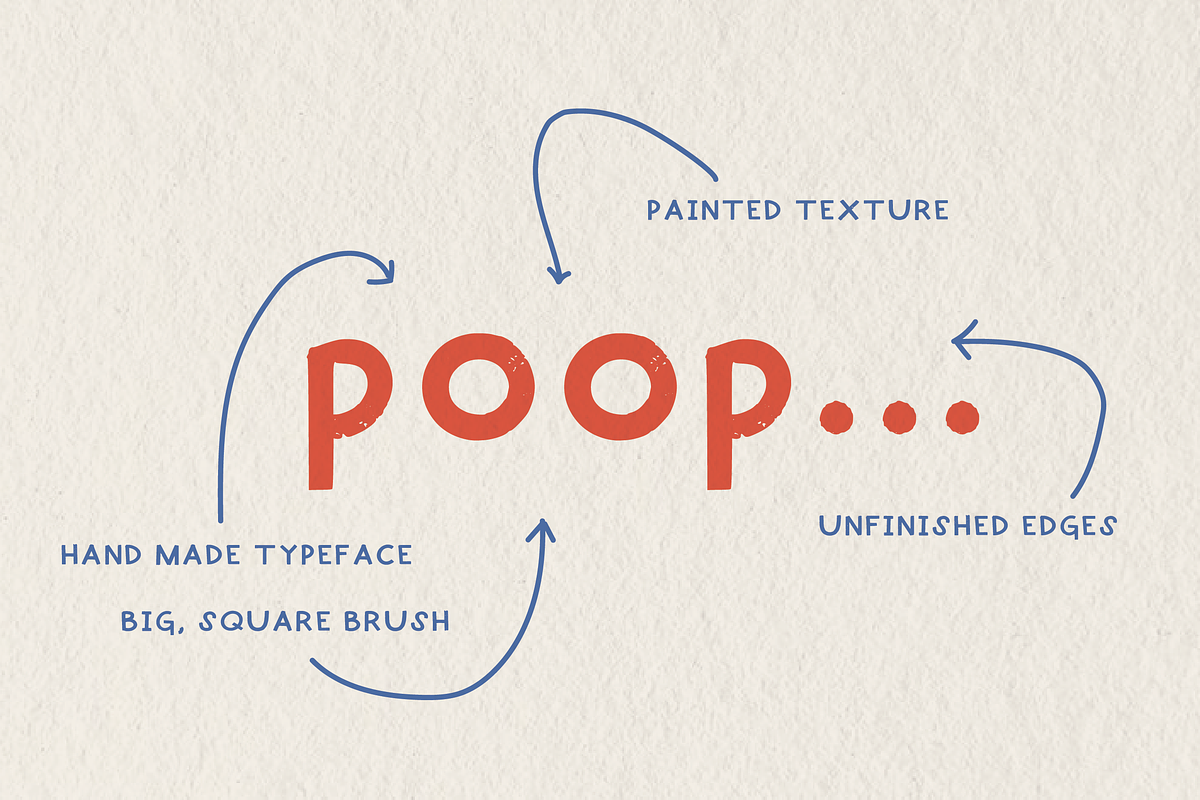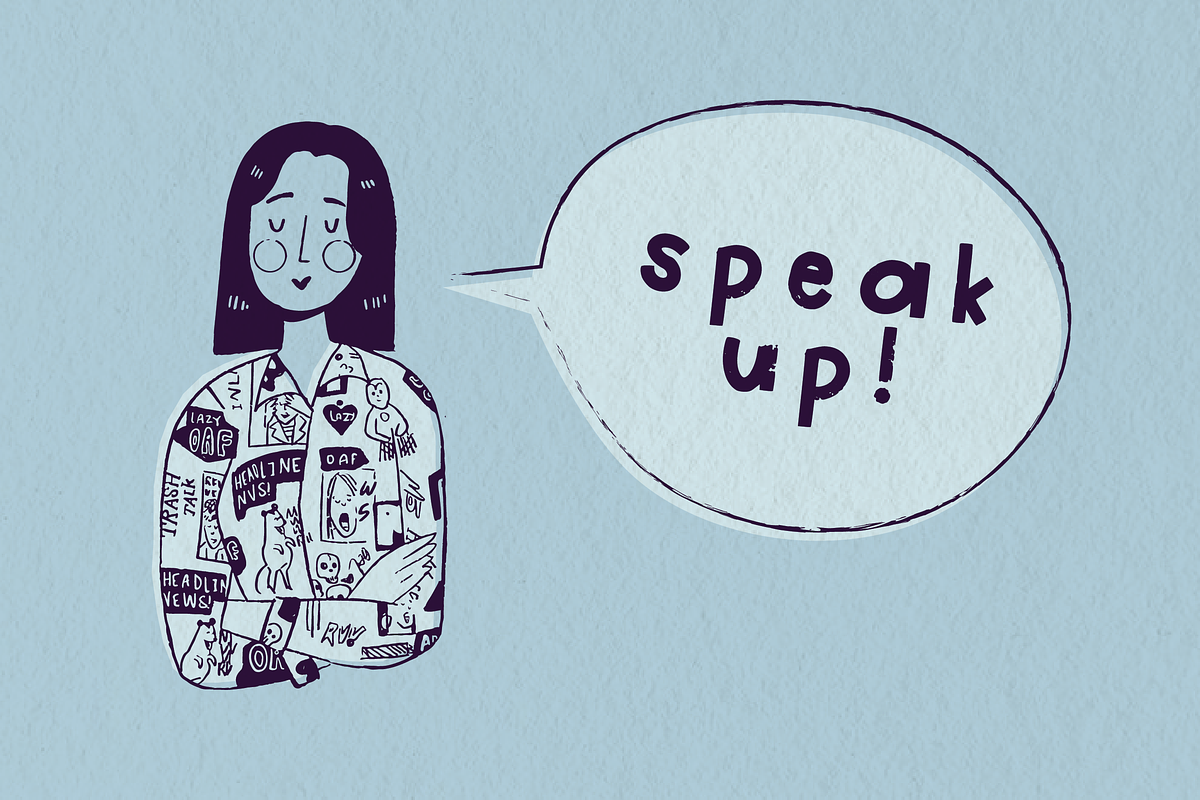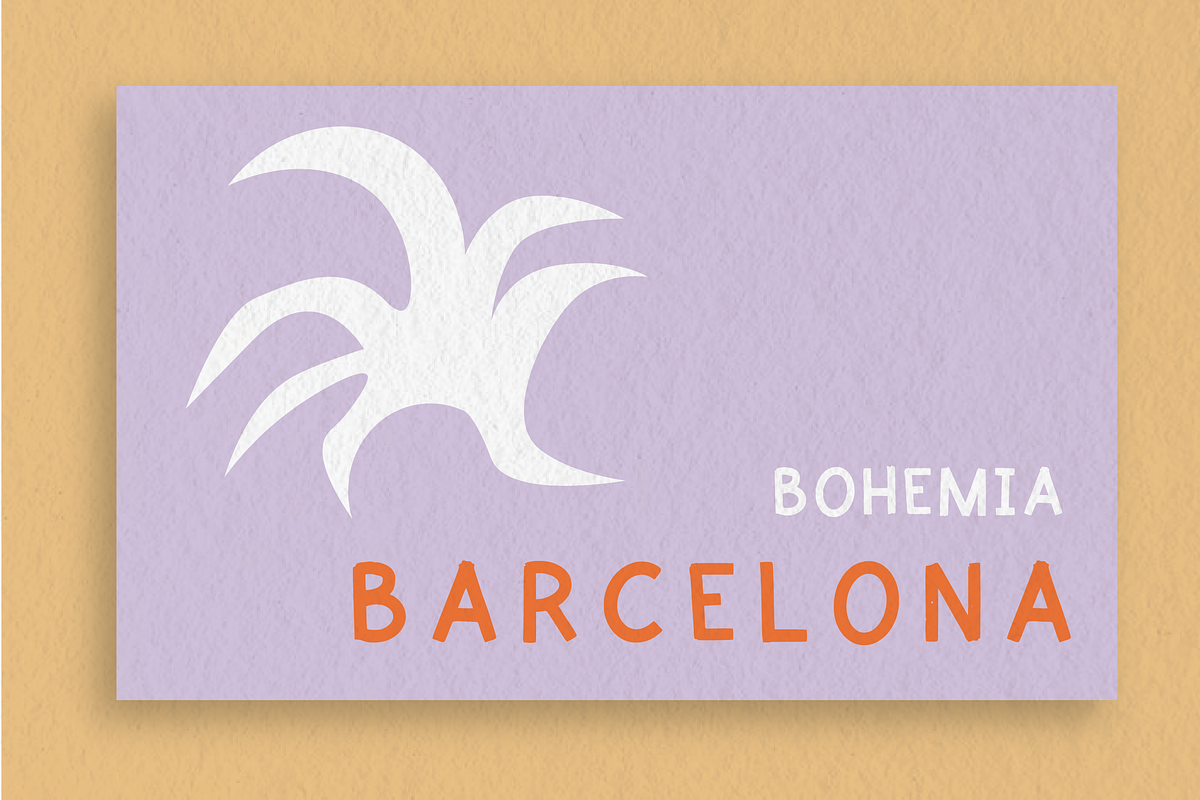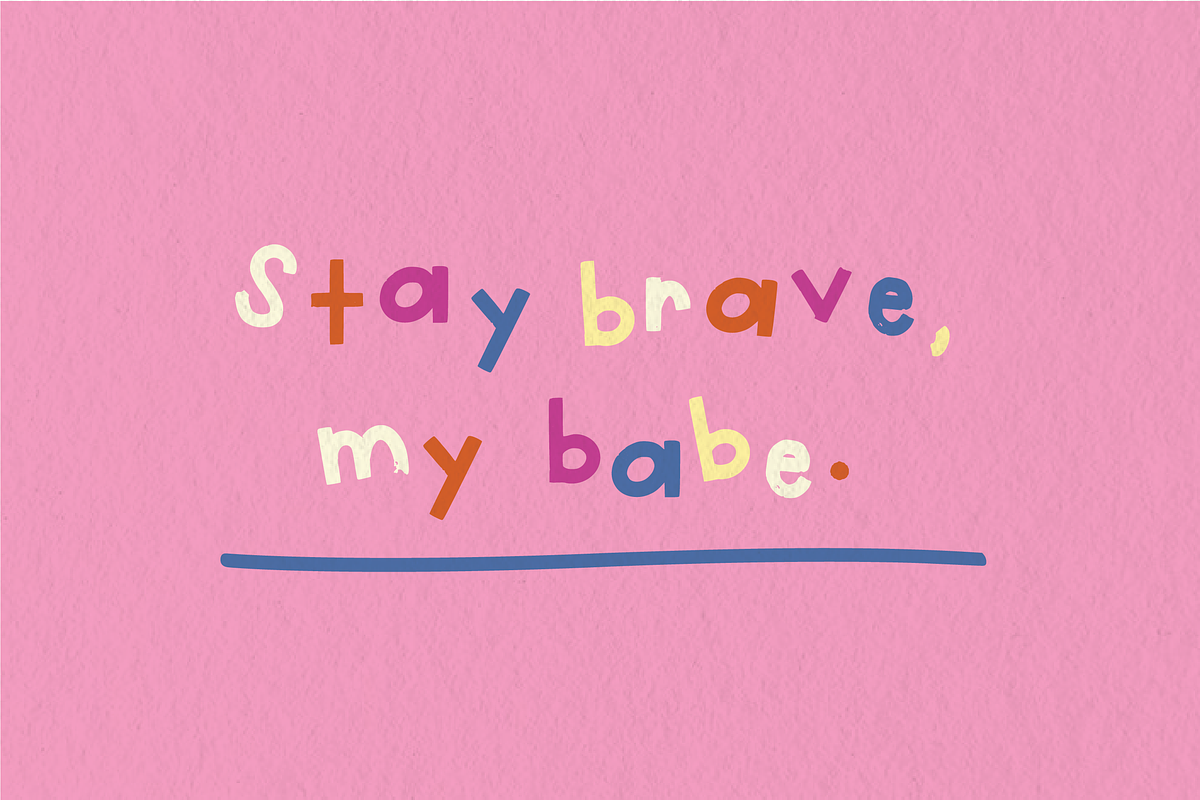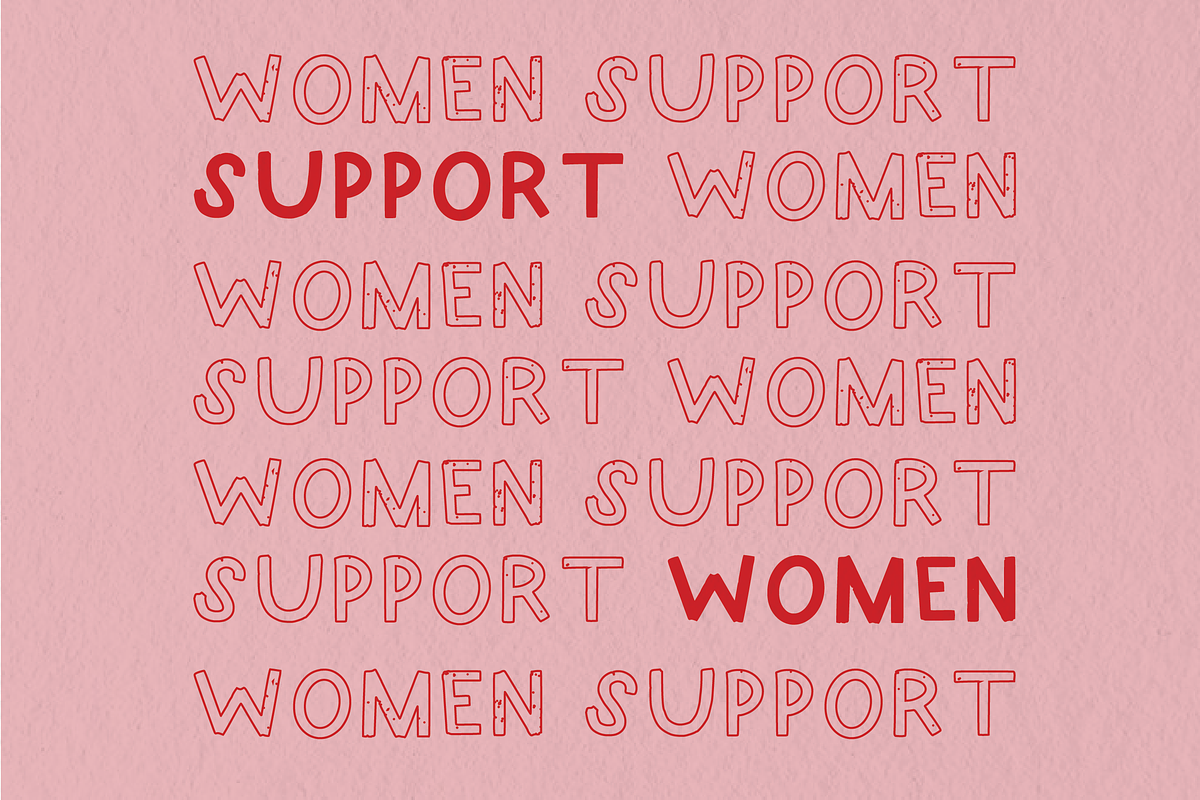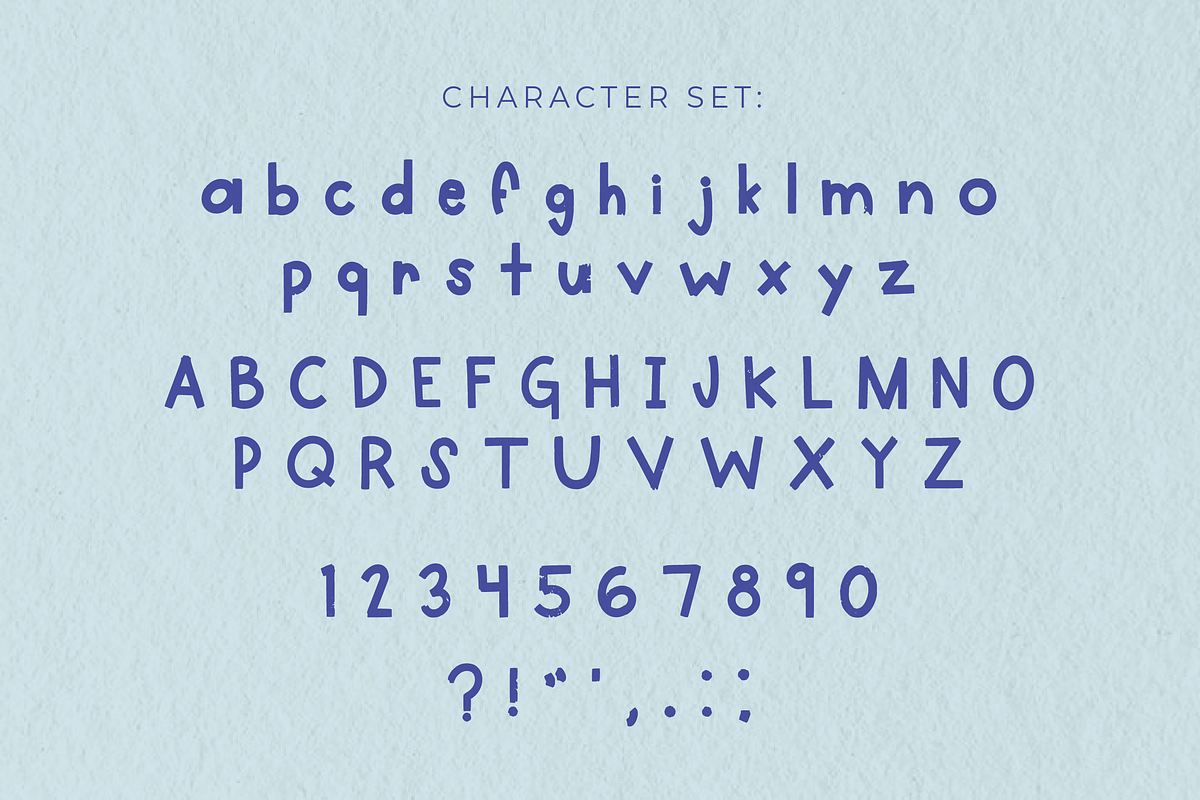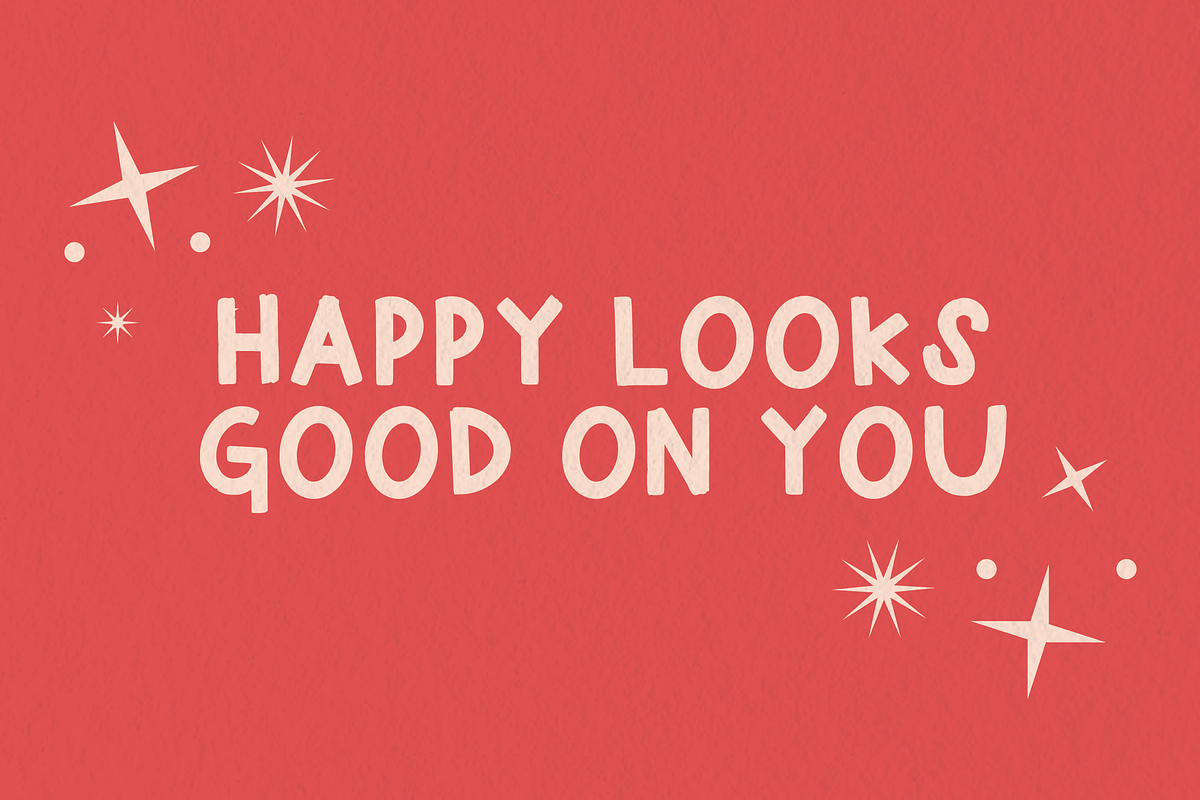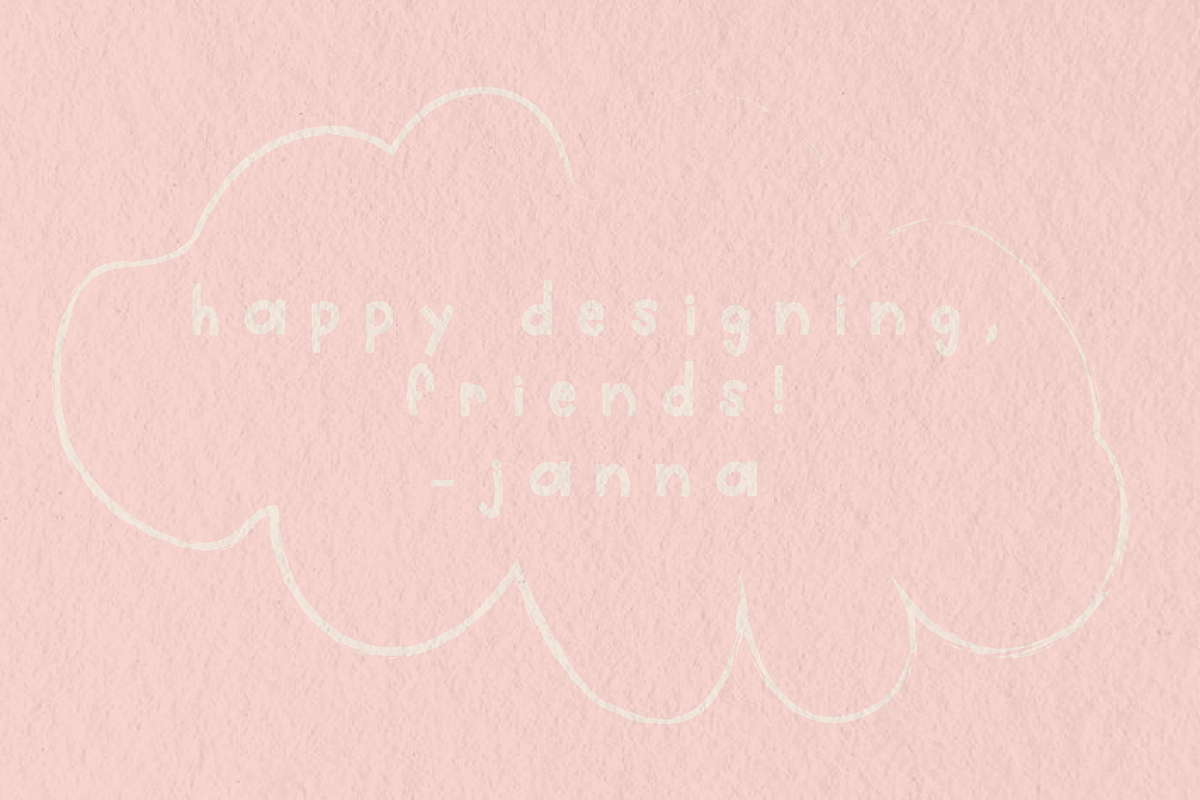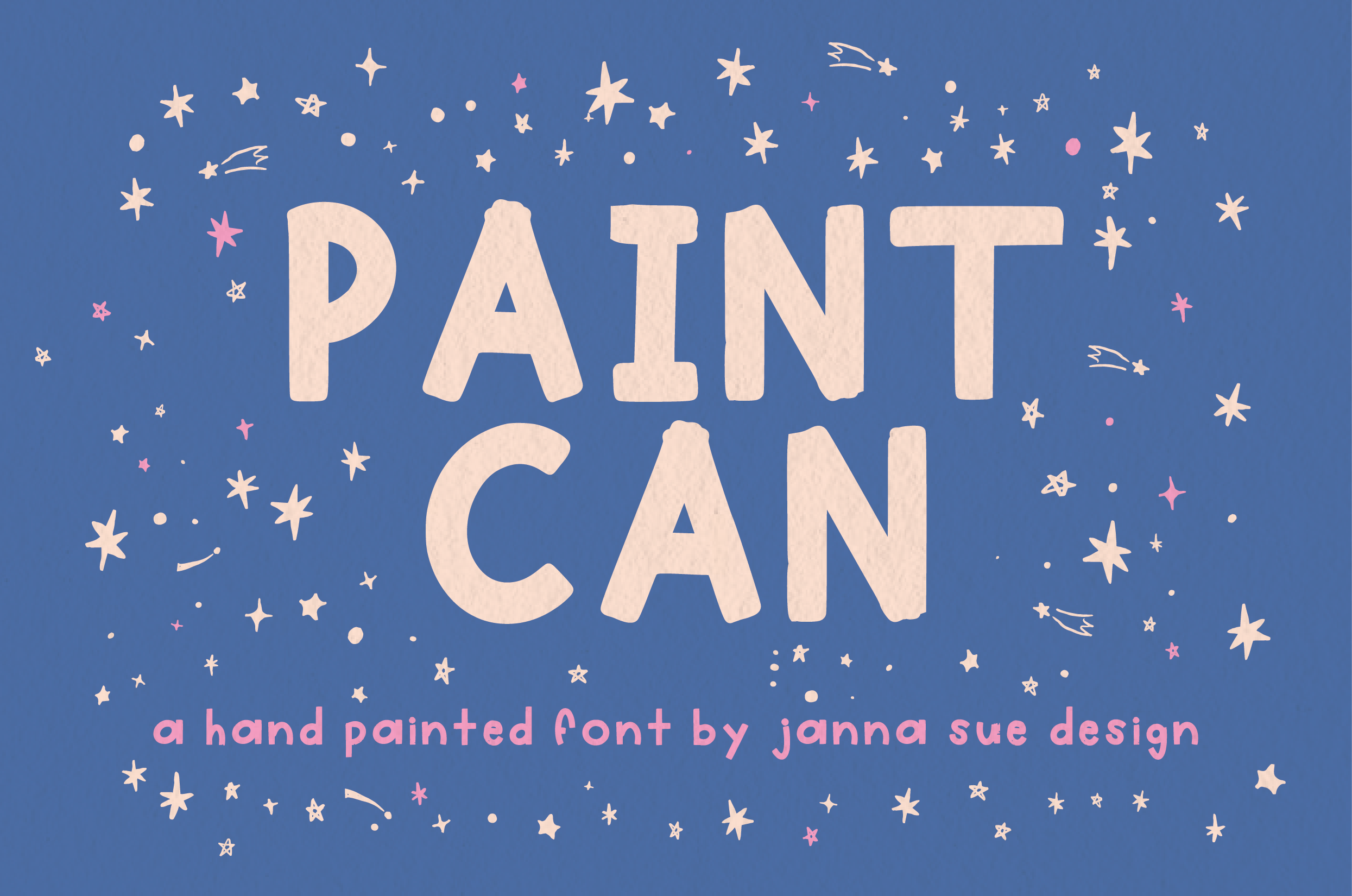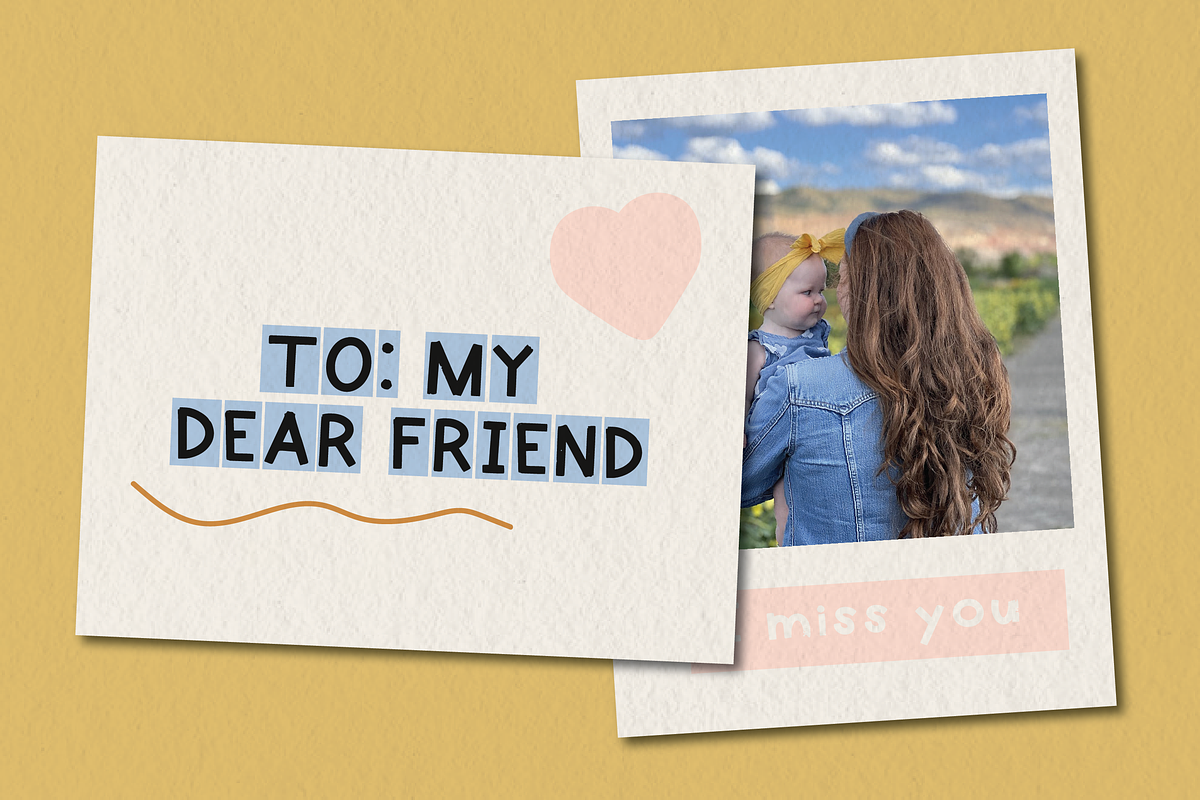
Paint Can (a hand painted font)
A happy hand painted font made with a thick square brush. this is a BOLD geometric font with painted texture, perfect for heading your design. Happy designing friends! XOXO Janna